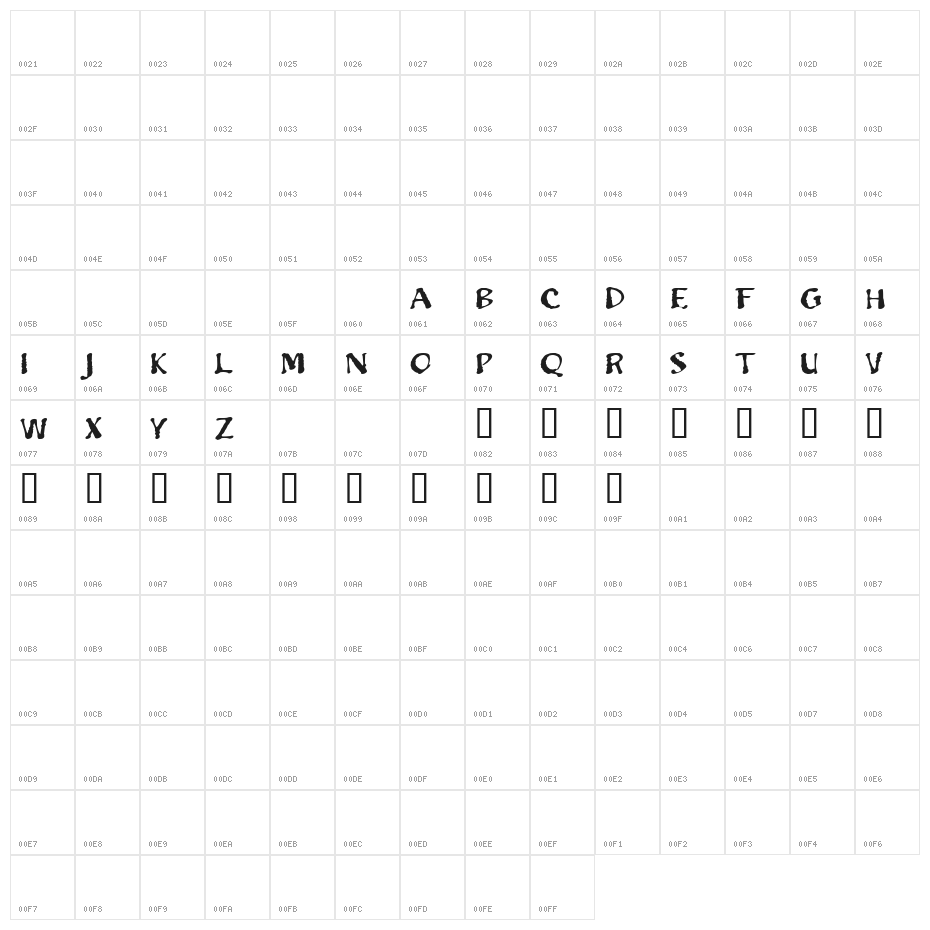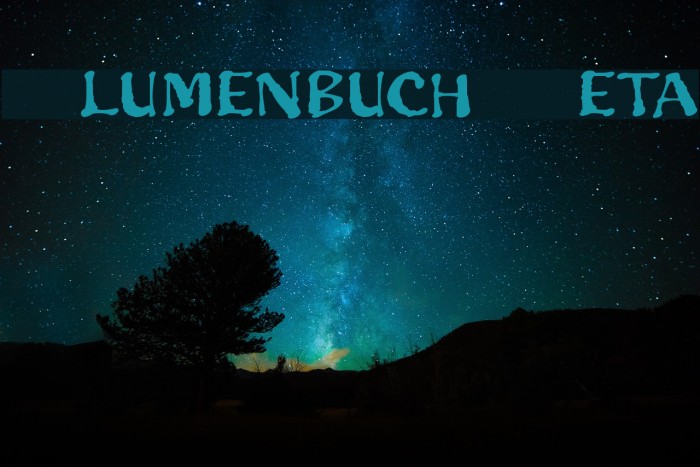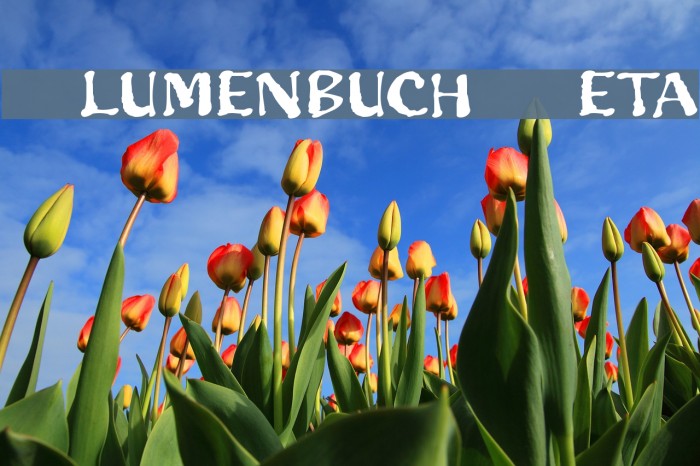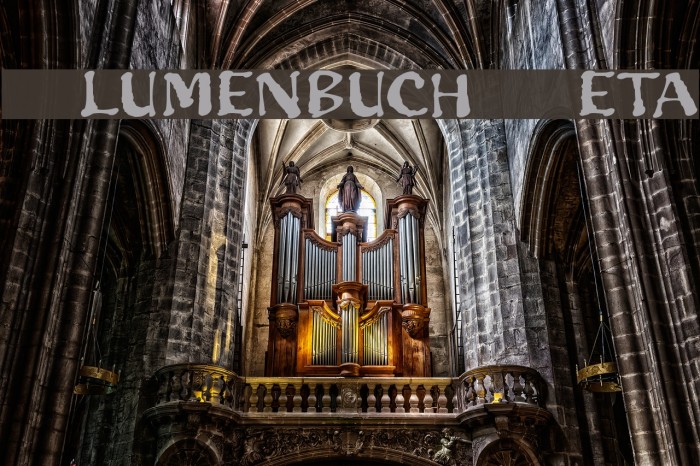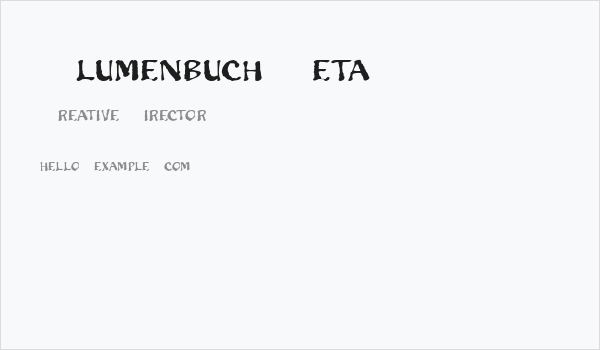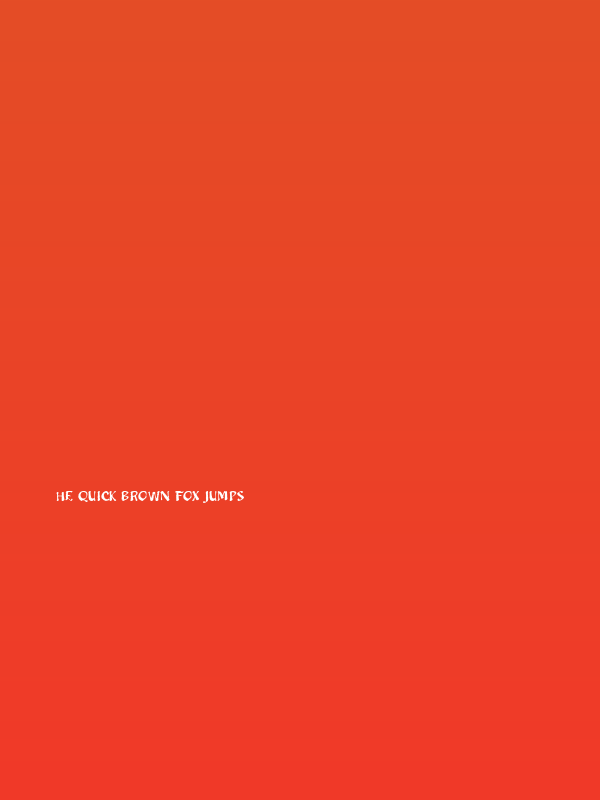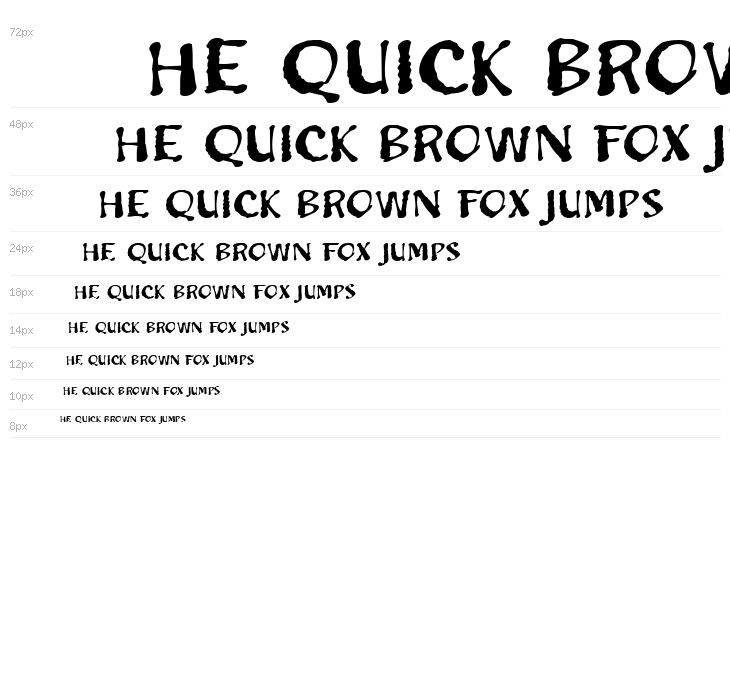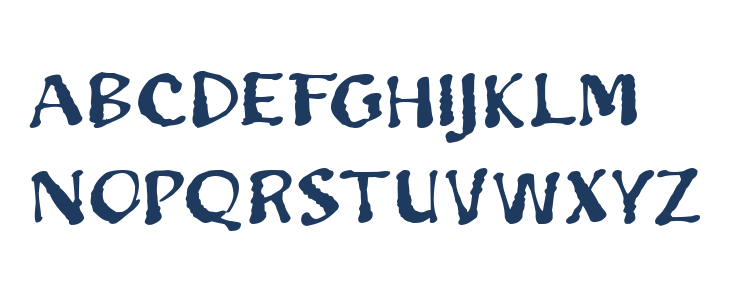
Blumenbuch Beta Font
Blumenbuch Beta Description
This font features a bold, brush-like appearance with a hand-drawn quality. The characters are slightly irregular, giving them a rustic and organic feel. The strokes are thick and uneven, adding a sense of movement and energy. The overall style is reminiscent of traditional calligraphy with a modern twist, making it suitable for creative and artistic projects. The uppercase letters are prominent and impactful, ideal for making a statement. The font's unique texture and character make it stand out, perfect for designs that require a personal touch.
Use CaseHeadlines, Logos, Artistic projects
Proposed ProjectsIdeal for posters, artistic branding, invitations, and creative headlines.